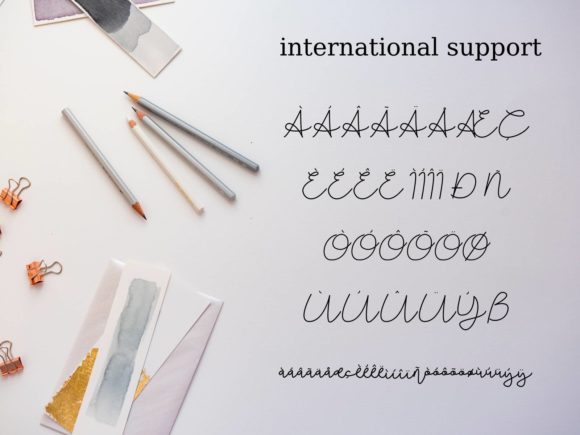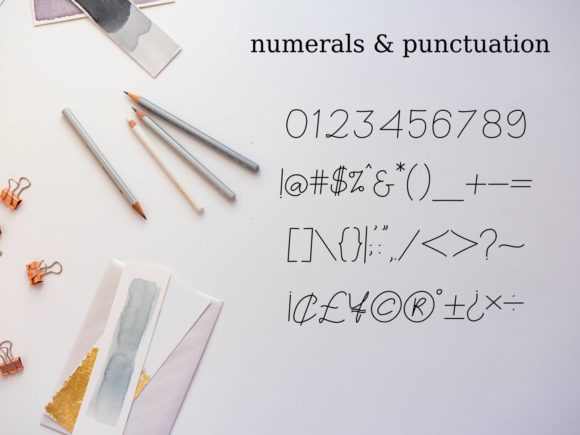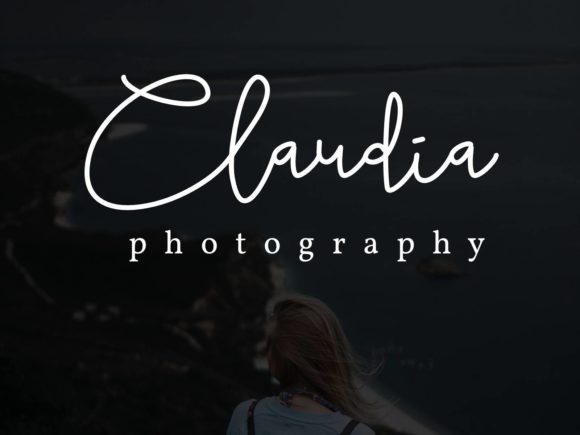
Classico Font
About Classico Font
Classico is a classy and sophisticated monoline script font with a modern feel. Get inspired by its unique design to approach!